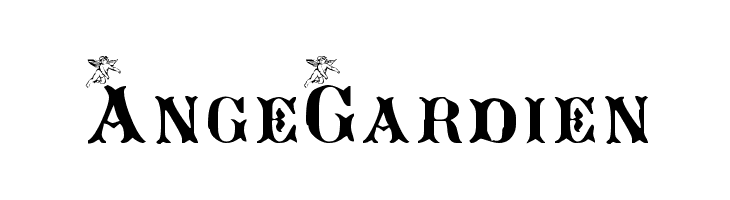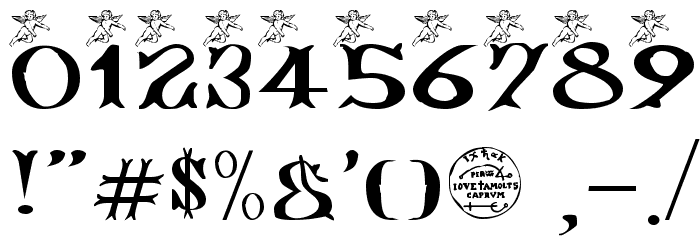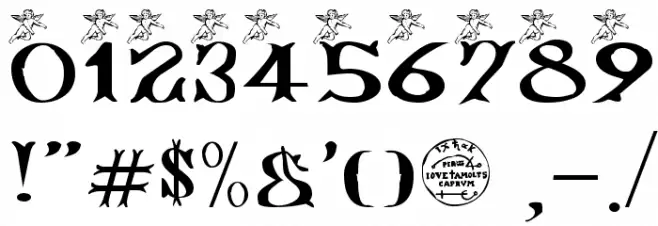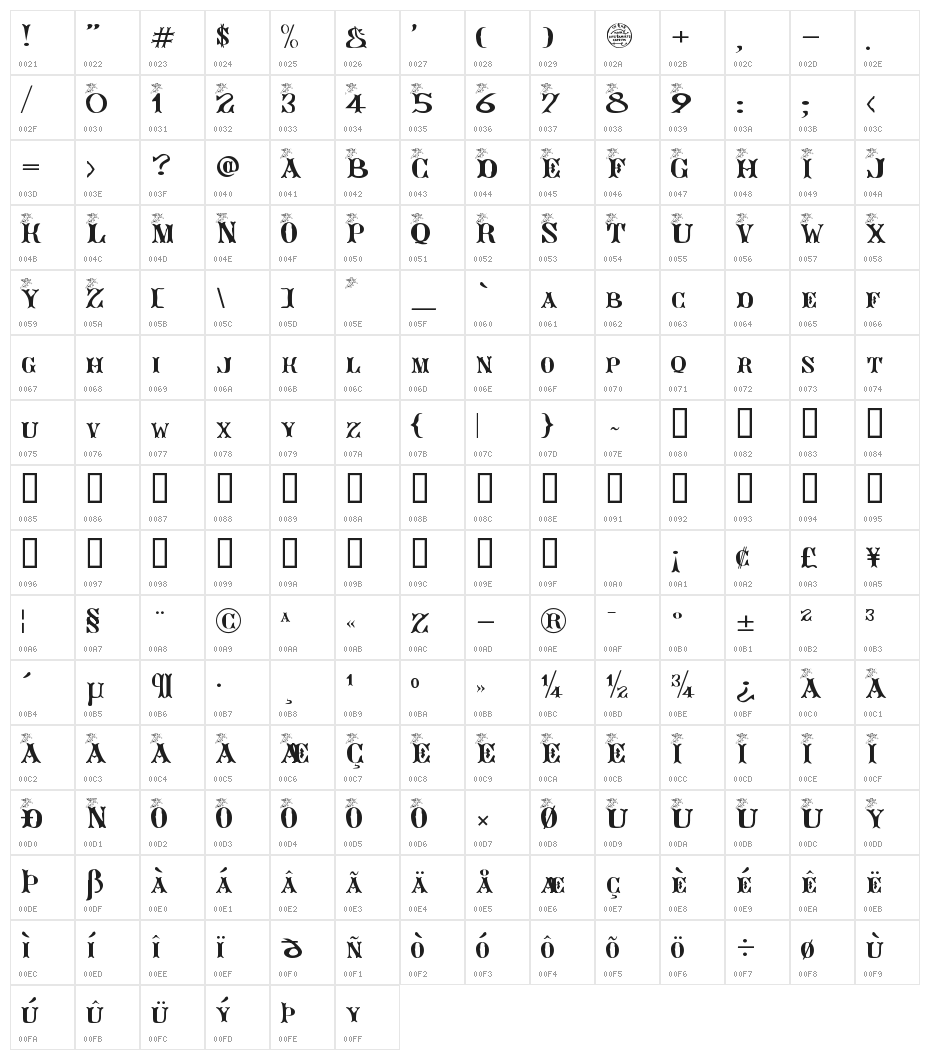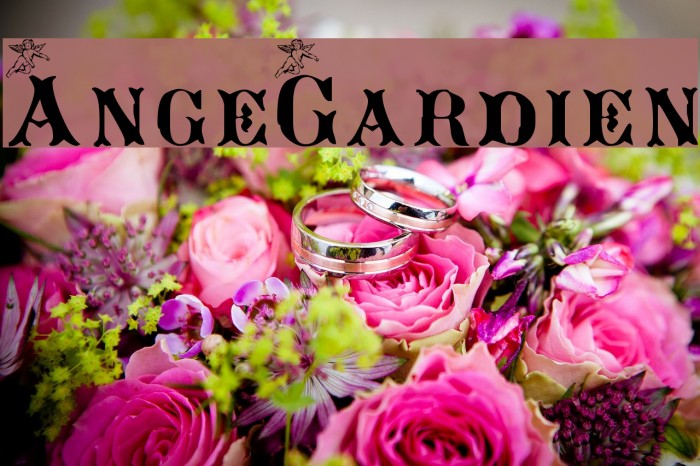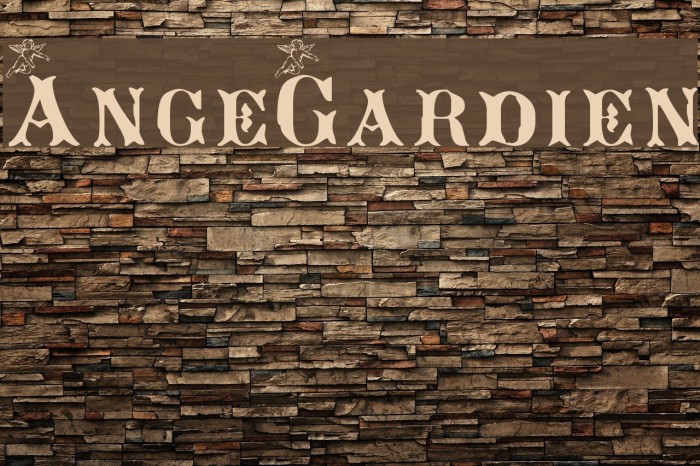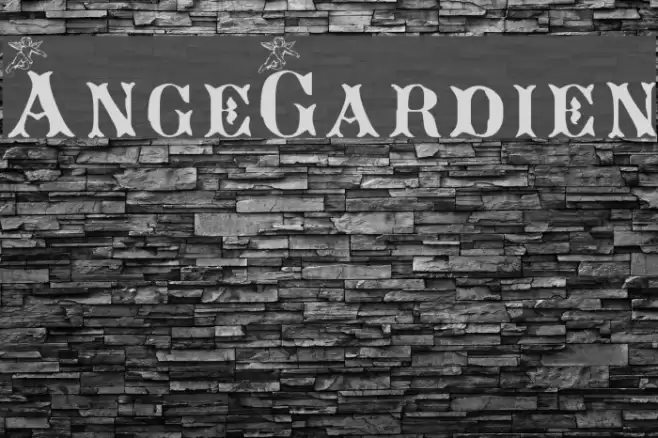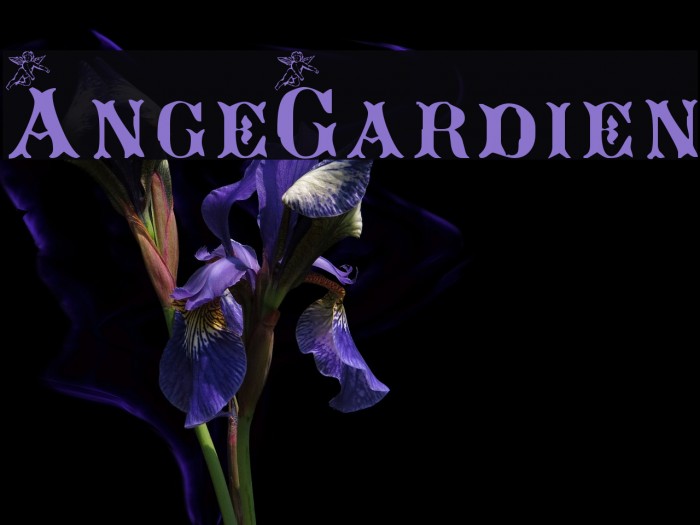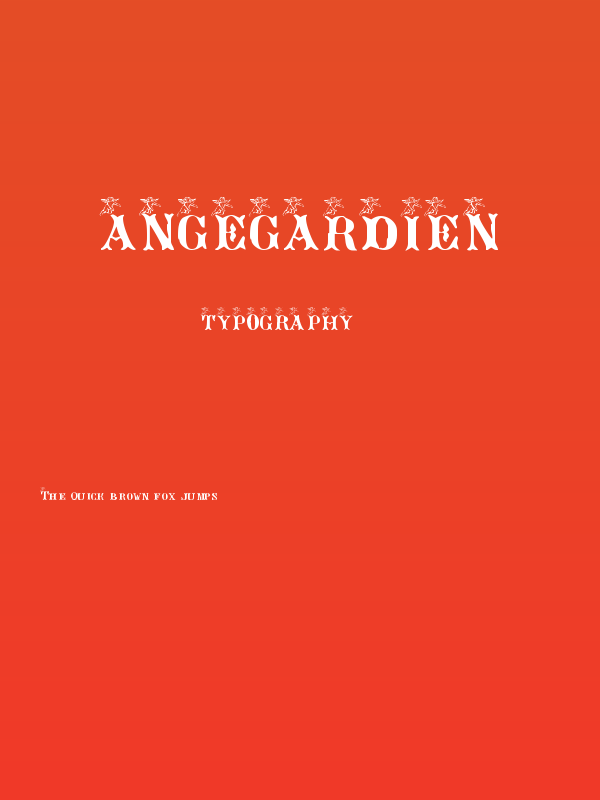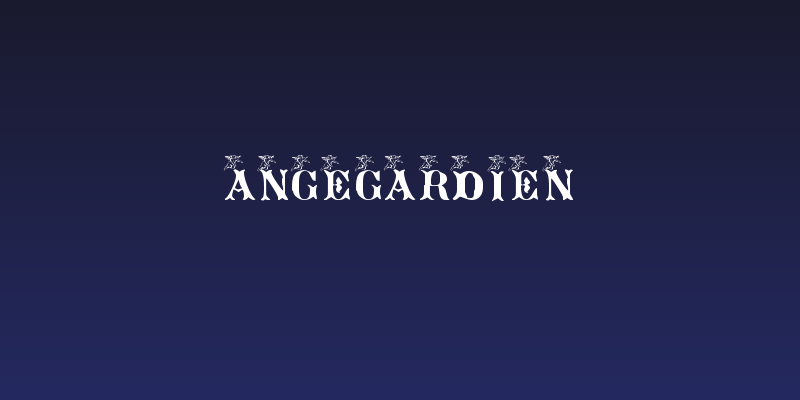
AngeGardien Font
AngeGardien Description
This font features a decorative style with a whimsical and playful touch, incorporating angelic motifs above each character. The uppercase letters are bold and have a unique flair with exaggerated serifs and curves, giving them a dynamic appearance. The lowercase letters maintain a consistent style, complementing the uppercase with similar embellishments. The numbers are equally stylized, ensuring a cohesive look throughout. Special characters are included, each designed with the same attention to detail, making them suitable for creative projects. The overall design is eye-catching and ideal for projects that require a touch of fantasy or elegance.
Use CaseHeadlines, Logos, Invitations
Proposed ProjectsIdeal for fantasy-themed designs, greeting cards, invitations, or any project needing a touch of elegance and whimsy.